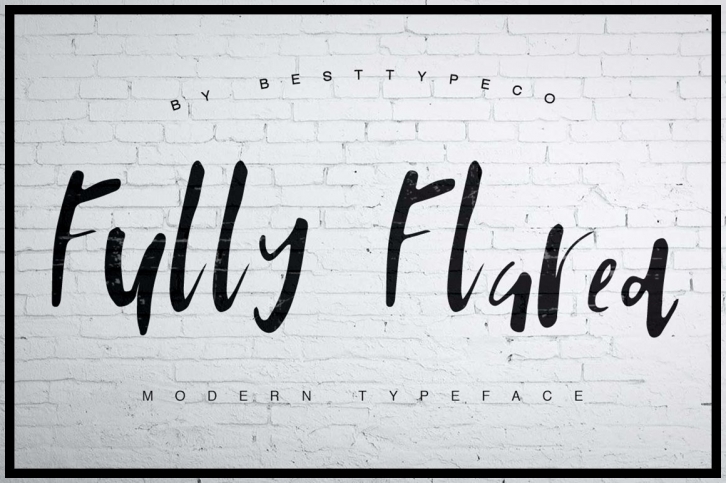
FullyFlared - a new fresh handmade calligraphy font. Very suitable for greeting cards, branding materials, business cards, quotes, posters, and more!
This font are perfect for wedding postcard. Or you can create perfect and unique design of your logo, blog, stationery, marketing, magazines and more :)